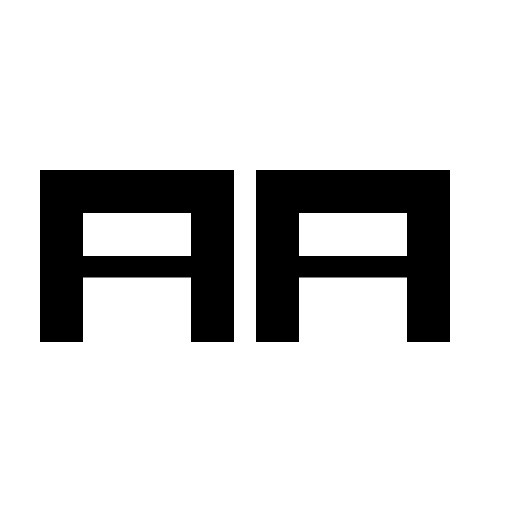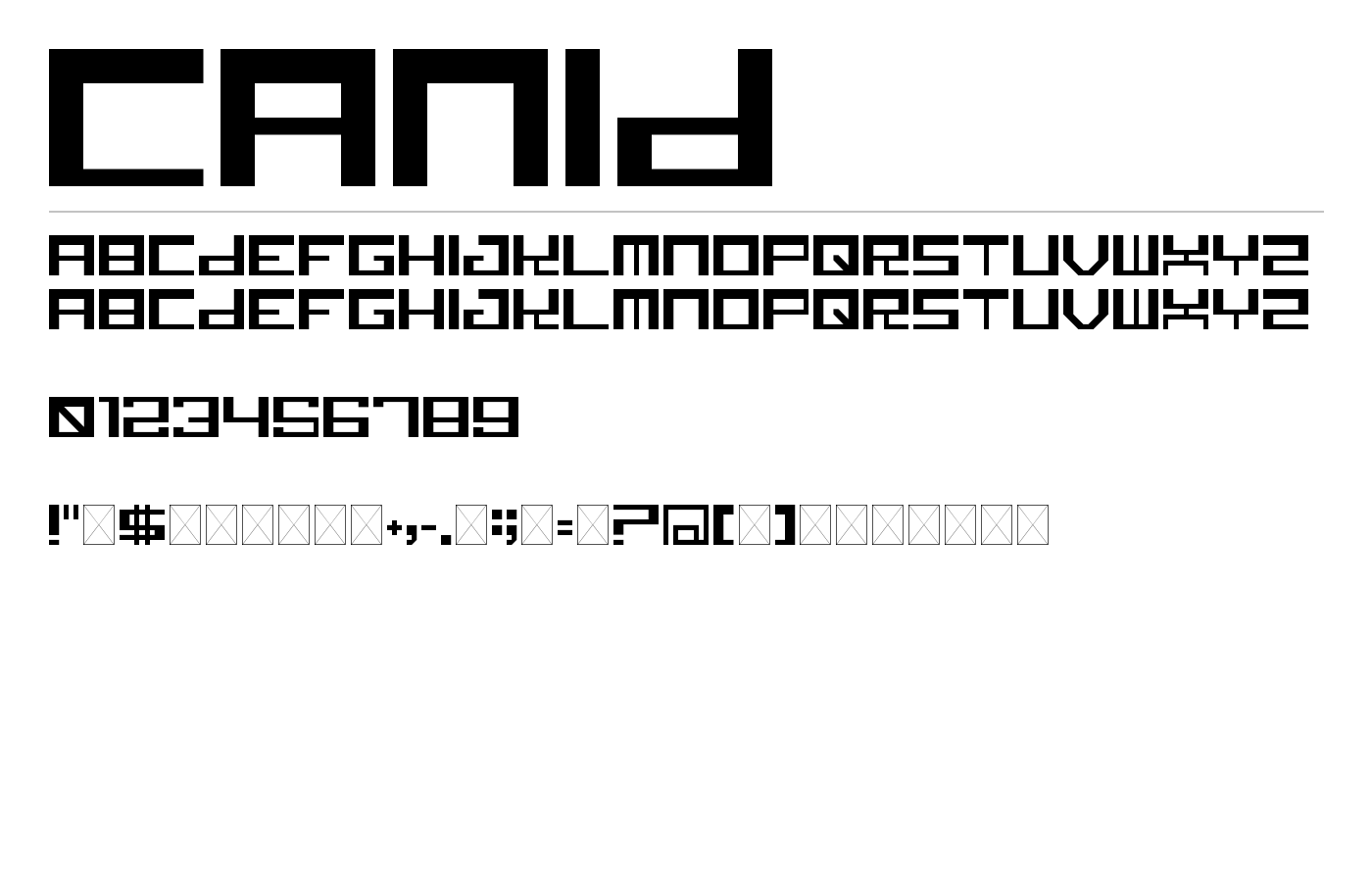
Canid is a bold, geometric sans serif font characterized by its strong, blocky letterforms and consistent stroke weight, giving it a modern, tech-inspired look. Its square shapes and sharp angles make it ideal for headlines, logos, and digital designs where a futuristic and industrial feel is desired. This font works particularly well for branding in technology or gaming industries, as well as for striking display text that demands attention.
Canid Font
About Canid Font
| Font family | Canid Font |
| Designer | Sreekumar M |